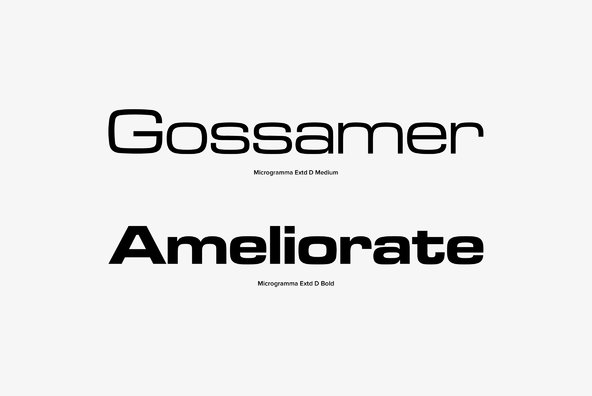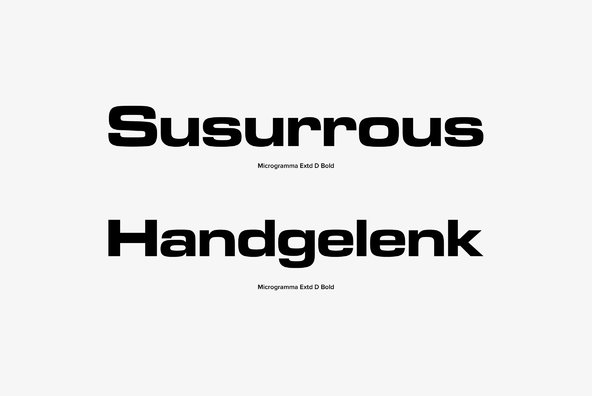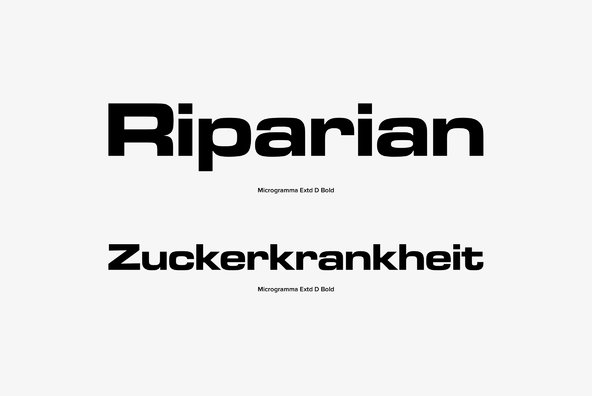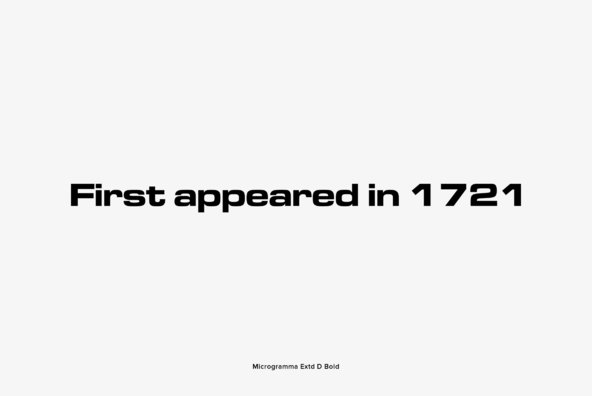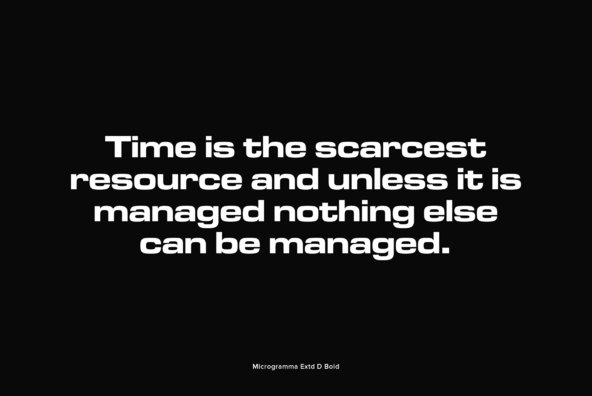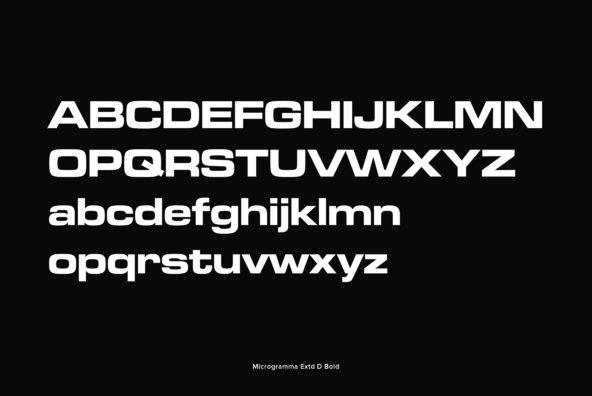
Microgramma
Microgramma was designed to Swiss principles by Alessandro Butti and Aldo Novarese for Nebiolo in 1952 as an improvement on the squared-off Bank Gothic capitals. The design was revisited by the same designers ten years later; Eurostile was the result.